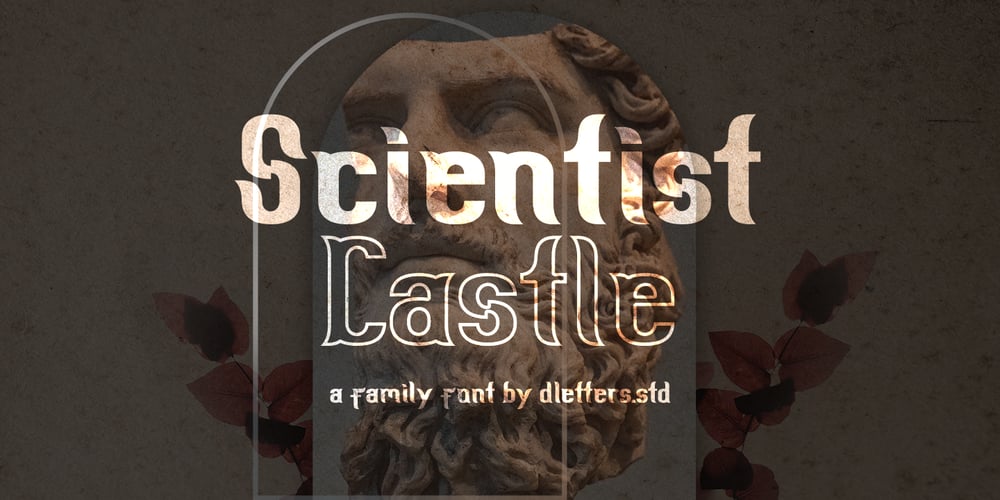
Scientist Castle Font Family was designed by Diosi Julianto and published by DLetters Studio. Scientist Castle contains 4 styles and family package options. Scientist Castle Family Slab Serif Font Is A Great Font For any project! Available in 4 styles that you can use for various purposes, as a combination or separation according to the design style. Complete with OpenType features, which allow you to give a more calligraphic look! There are regular, Italic, Outline, and Outline Italic styles and very easy to use.Scientist Castle Family Slab Serif Font is a great choice for Projects you like branding, design, wedding, photography, Magazine, logo designs, album, covers Book, business cards, quotes, and projects other designs.What’s Included :– S-Alt– Works on Win, Mac– Simple installations– Accessible in Adobe Illustrator, Adobe Photoshop, Adobe InDesign, even work on Microsoft Word.– PUA Encoded Characters– Fully accessible without additional design software.Thanks for your support, please kindly send us a message for any question about our product.Hope you like it.